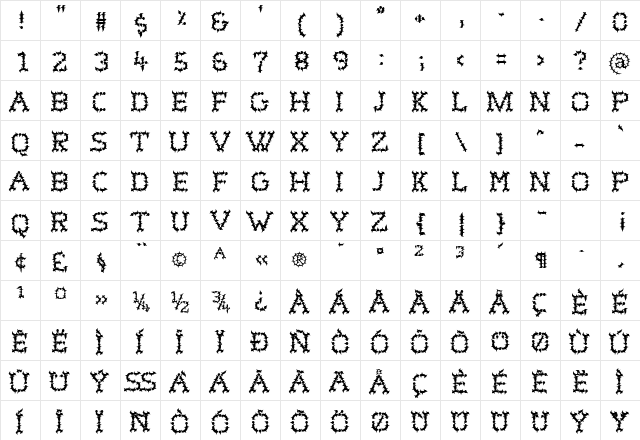
WurstCactus Regular
Design Context for WurstCactus Typeface
WurstCactus is a composed and adaptable typeface that performs quietly and consistently across a wide range of design contexts.